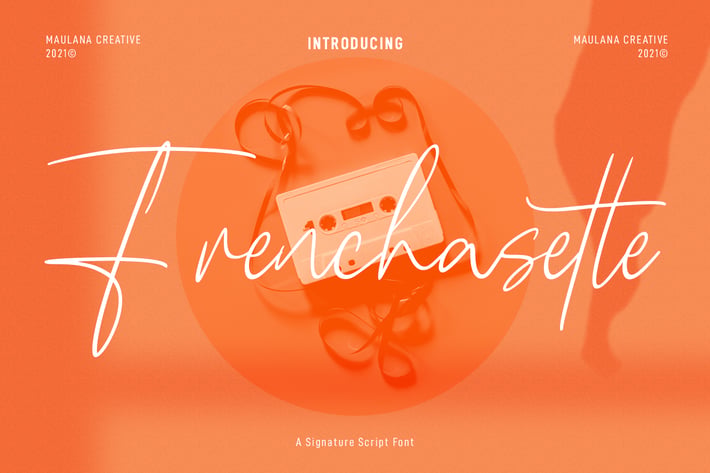
Frenchasette Signature Script Font
Frenchasette is a casual signature script font. With light contrast stroke, fun character with some of ligatures. To give you an extra creative work. Frenchasette font support multilingual more than 100+ language. This font is good for logo design, Social media, Movie Titles, Books Titles, a short text even a long text letter and good for your secondary text font with sans or serif. Make a stunning work with Frenchasette font.